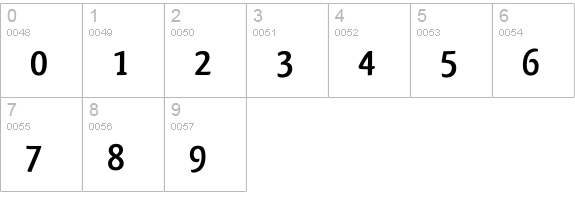
Qlassik Bold Font Details
Qlassik Bold is a strong, high-contrast variant in the Qlassik typeface family \xE2\x80\x94 well suited to headlines, attention-grabbing titles, and strong calls-to-action.
Qlassik Bold font is a timeless and elegant typeface that radiates confidence and sophistication. With its bold and striking design, this font is perfect for making a statement in any project. Whether you are designing a logo, creating invitations, or crafting a stylish poster, Qlassik Bold will elevate your work to a whole new level of class and professionalism. The clean lines and sharp edges of Qlassik Bold exude a sense of modernity and luxury, making it a versatile choice for a wide range of design applications. Its bold weight ensures that your text will stand out and command attention, while still maintaining a sense of refinement and elegance. What makes Qlassik Bold even more appealing is that it is available for free download at FontsMarket.com. This means that you can add this beautiful font to your collection without any cost, making it an excellent option for both personal and commercial projects. Don't miss out on the opportunity to enhance your designs with the timeless charm of Qlassik Bold font.